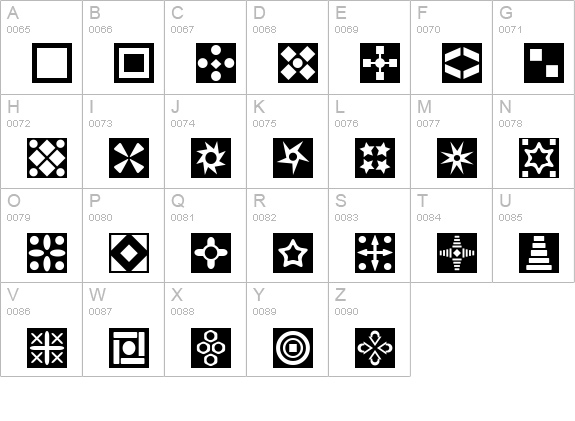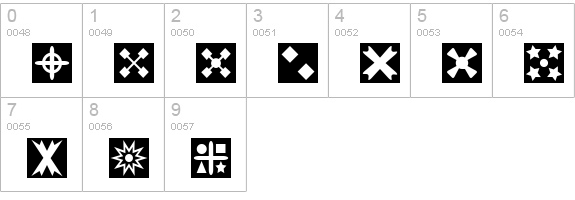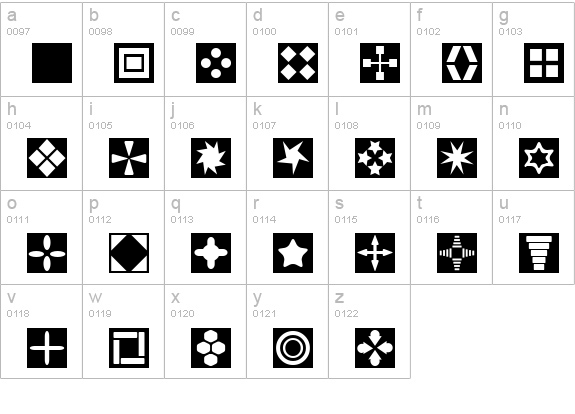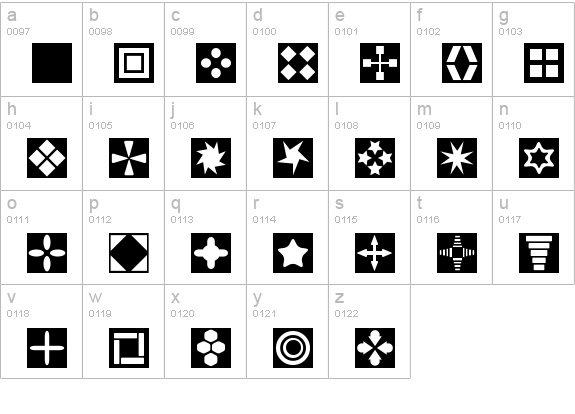
Square Things Font Details
Introducing Square Things font, a modern and versatile typeface that will add a unique touch to any creative project. This font features clean lines and geometric shapes, giving it a contemporary and minimalist look. Square Things font is perfect for a wide range of design applications, including logos, posters, branding, headlines, and more. Its simplicity and readability make it suitable for both digital and print media, ensuring that your message is effectively communicated to your audience. But what sets Square Things font apart is that it is not only visually appealing, but also freely available to download at FontsMarket.com. Yes, you heard it right - this high-quality font can be yours without spending a dime. With Square Things font, you can unleash your creativity without any constraints. Whether you're a professional designer or a casual enthusiast, this font will help you elevate your projects to new heights. Its versatility allows it to seamlessly blend with various design styles, adding a touch of sophistication and modernity. So, don't miss out on the opportunity to enhance your designs with Square Things font. Head over to FontsMarket.com and download it for free today. Unleash your creativity and make your projects truly stand out with this exceptional font.